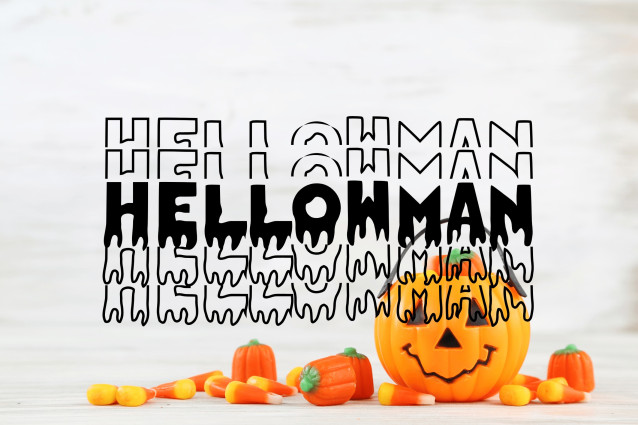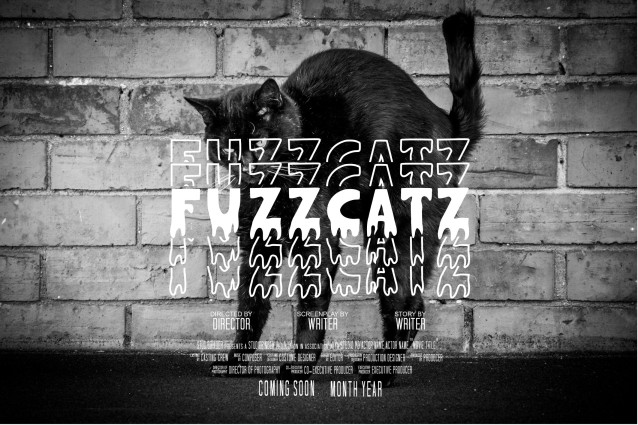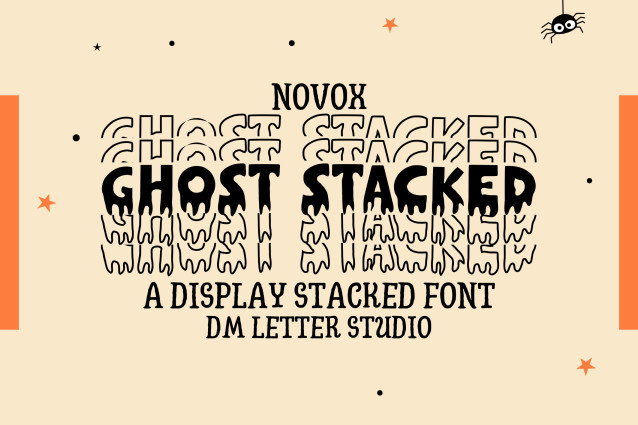
Novox Ghost Stacked Font
Novox Ghost Stacked is a chilling and stylized stacked variant of the original Novox Ghost font. With its spectral strokes, eerie balance, and vertically-aligned form, this typeface conjures an otherworldly atmosphere perfect for Halloween designs, ghost-themed branding, thriller titles, and spooky crafts. Its stacked arrangement creates a dramatic and mysterious presence on posters, logos, and digital graphics.